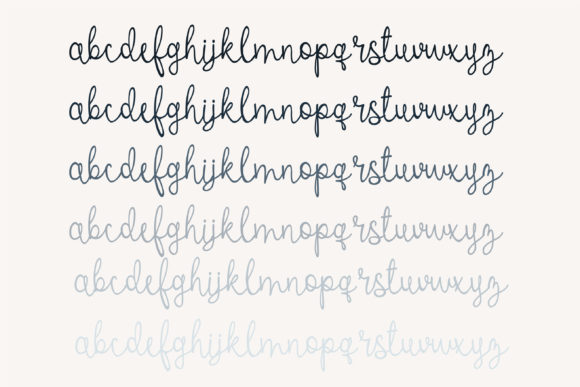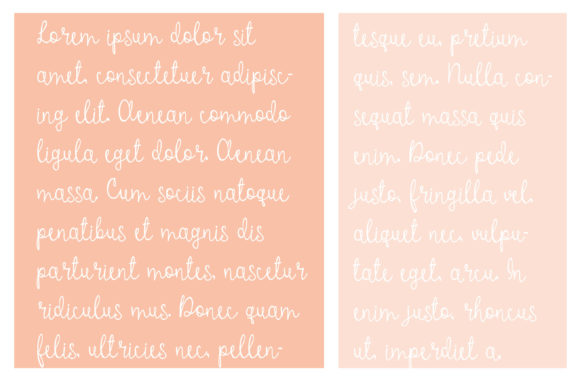
ZP Gingersnap Font
db-ku.com - Script & Handwritten -- This hand-crafted script is a traditional cursive font. Stenciled and bold versions are included to suit all your creative ideas!